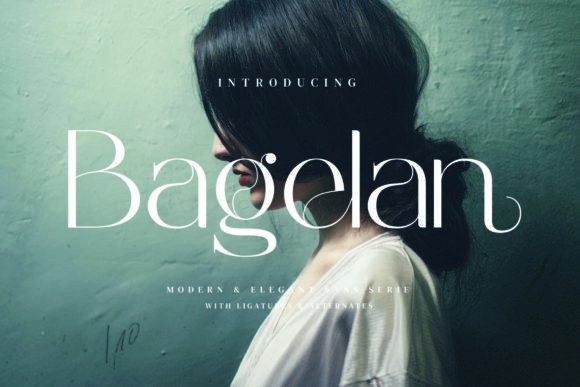
Introducing Bagelan Font: The Ultimate Minimalist Typeface for Modern Design
In the world of design, typography plays a crucial role in conveying messages, creating visual identities, and setting the tone for a brand or project. With the numerous font options available, finding the perfect one that embodies simplicity, elegance, and versatility can be a daunting task. However, if you’re looking for a typeface that ticks all these boxes, look no further than Bagelan Font. Inspired by the famous minimalist logo, Bagelan Font is a sans-serif typeface that has taken the design world by storm, and for good reason.
Key Features of Bagelan Font
- Minimalist Design: Bagelan Font boasts a clean and minimalist design, making it perfect for designs that require a touch of simplicity and sophistication.
- Versatility: This font is incredibly versatile and can be used for a wide range of design projects, including templates, brochures, videos, advertising branding, logos, invitations, layout designs, and more.
- PUA Encoded Characters: Bagelan Font comes with PUA encoded characters, which means that you can access all the characters without needing additional design software.
Endless Design Possibilities with Bagelan Font
Bagelan Font is an excellent choice for designers who want to create stunning visual content. Here are some design applications where this font truly shines:
- Branding and Logos: Create a lasting impression with a simple yet elegant logo that speaks volumes about your brand.
- Brochures and Flyers: Design eye-catching brochures and flyers that effectively communicate your message.
- Video Titles and Subtitles: Add a touch of sophistication to your video content with Bagelan Font.
- Invitations and Event Designs: Create beautiful invitations, event posters, and social media graphics that exude elegance.
- Beauty and Fashion Design: Use Bagelan Font to create stunning beauty and fashion designs, including packaging, advertisements, and editorial content.
Benefits of Using Bagelan Font
So, why should you choose Bagelan Font for your design projects? Here are some benefits that make it an excellent choice:
- Elegance and Sophistication: Bagelan Font adds a touch of elegance and sophistication to any design project.
- Readability: The font’s clean design ensures excellent readability, making it perfect for body text and headings.
Tips and Tricks for Using Bagelan Font
To get the most out of Bagelan Font, here are some tips and tricks to keep in mind:
- Experiment with Font Sizes: Play around with different font sizes to create visual hierarchy and emphasis.
- Pair with Other Fonts: Combine Bagelan Font with other fonts to create a unique and visually appealing typography.
- Adjust Letter Spacing: Adjust the letter spacing to create a more cohesive and harmonious design.
- Use in Combination with Images: Use Bagelan Font in combination with high-quality images to create stunning visual content.
In conclusion, Bagelan Font is an exceptional typeface that offers a perfect blend of simplicity, elegance, and versatility. With its minimalist design, PUA encoded characters, and compatibility with popular design software, it’s an excellent choice for designers who want to create stunning visual content. Whether you’re designing a logo, brochure, video, or social media graphic, Bagelan Font is sure to elevate your design to the next level.